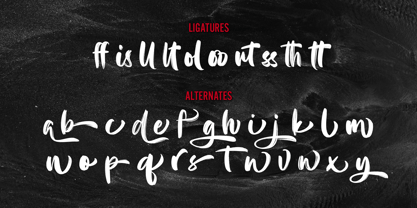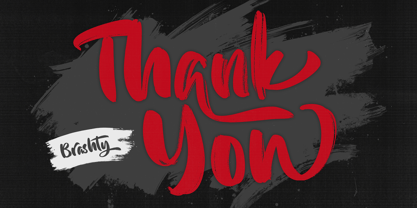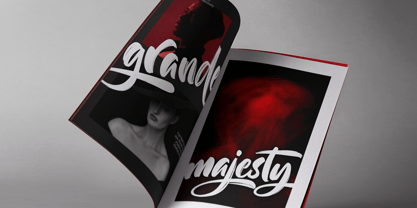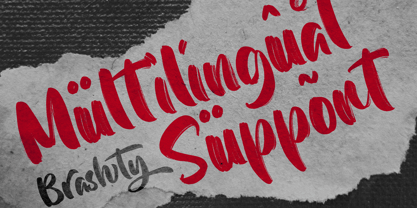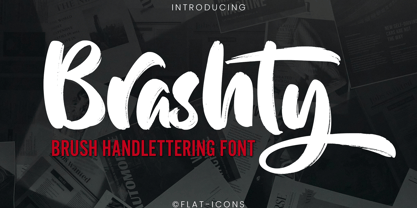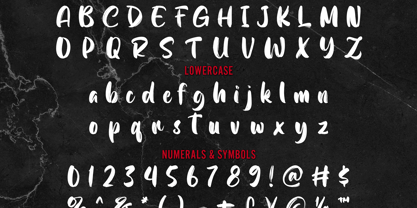
Brashty
von Krafted
Die Schriftfamilie Brashty wurde von Heri Imanudin entworfen und von Krafted veröffentlicht. Brashty enthält 1 Stile. Mehr über diese Familie
Bring personality and flair to your projects, a beautifully crafted brush-handlettering font.
Perfect for adding a personal touch to websites, social media, invitations, and more! Customizable in size and style, Brashty makes every design feel unique and expressive, giving your content an artistic, handcrafted look that stands out.
• Multilingual & Ligature Support
• Full sets of Punctuation and Numerals
Designer: Heri Imanudin
Foundry: Krafted